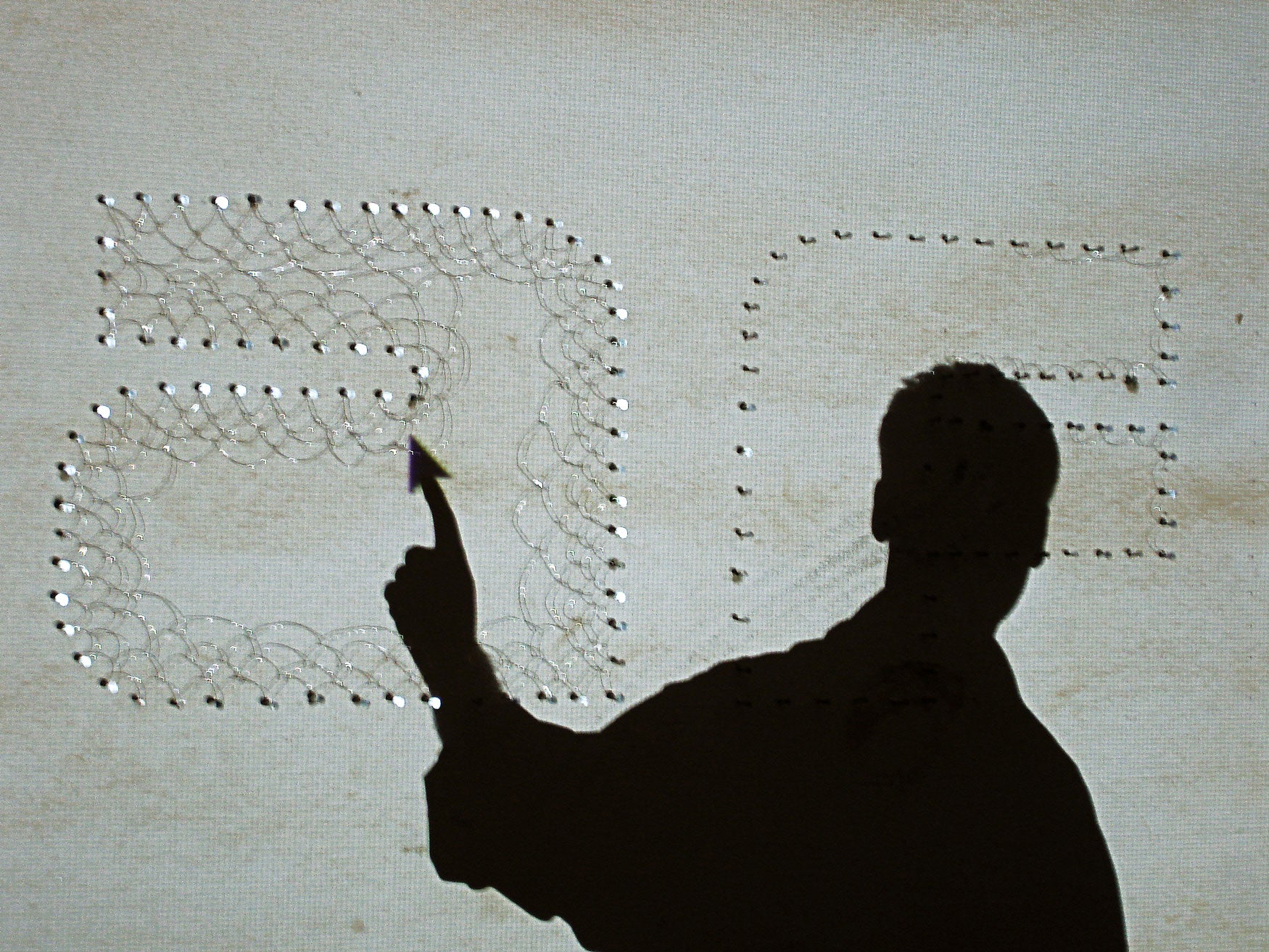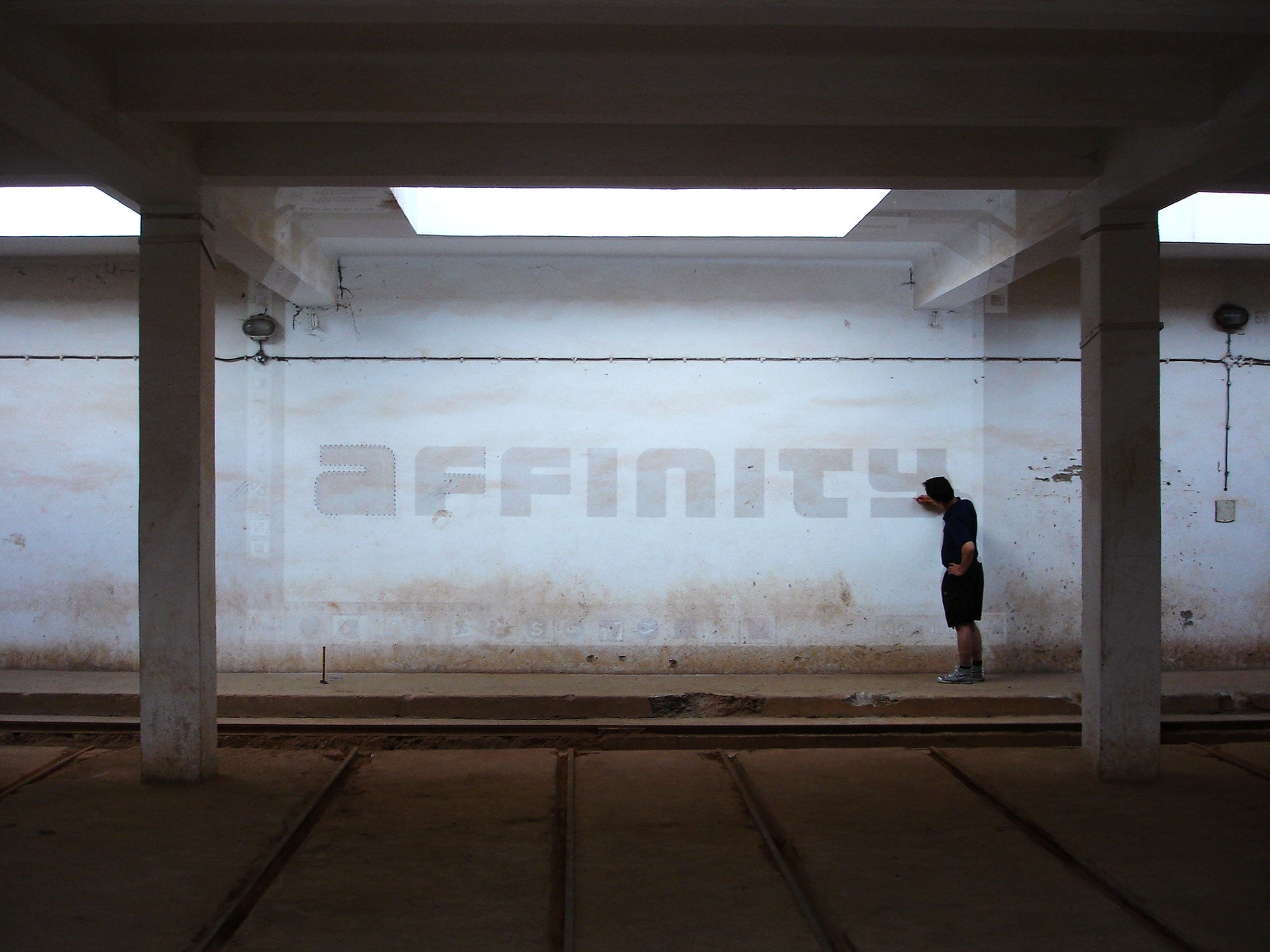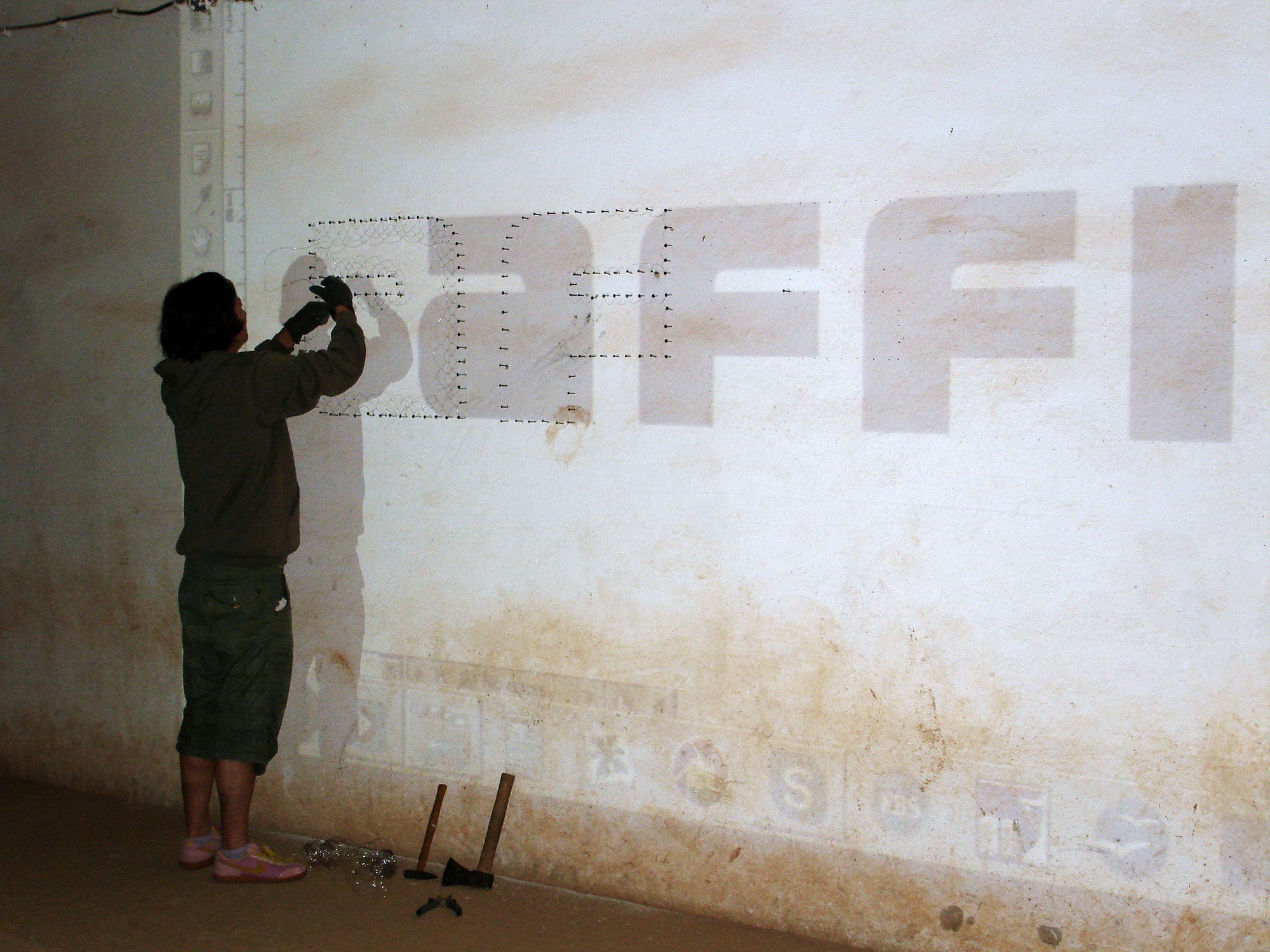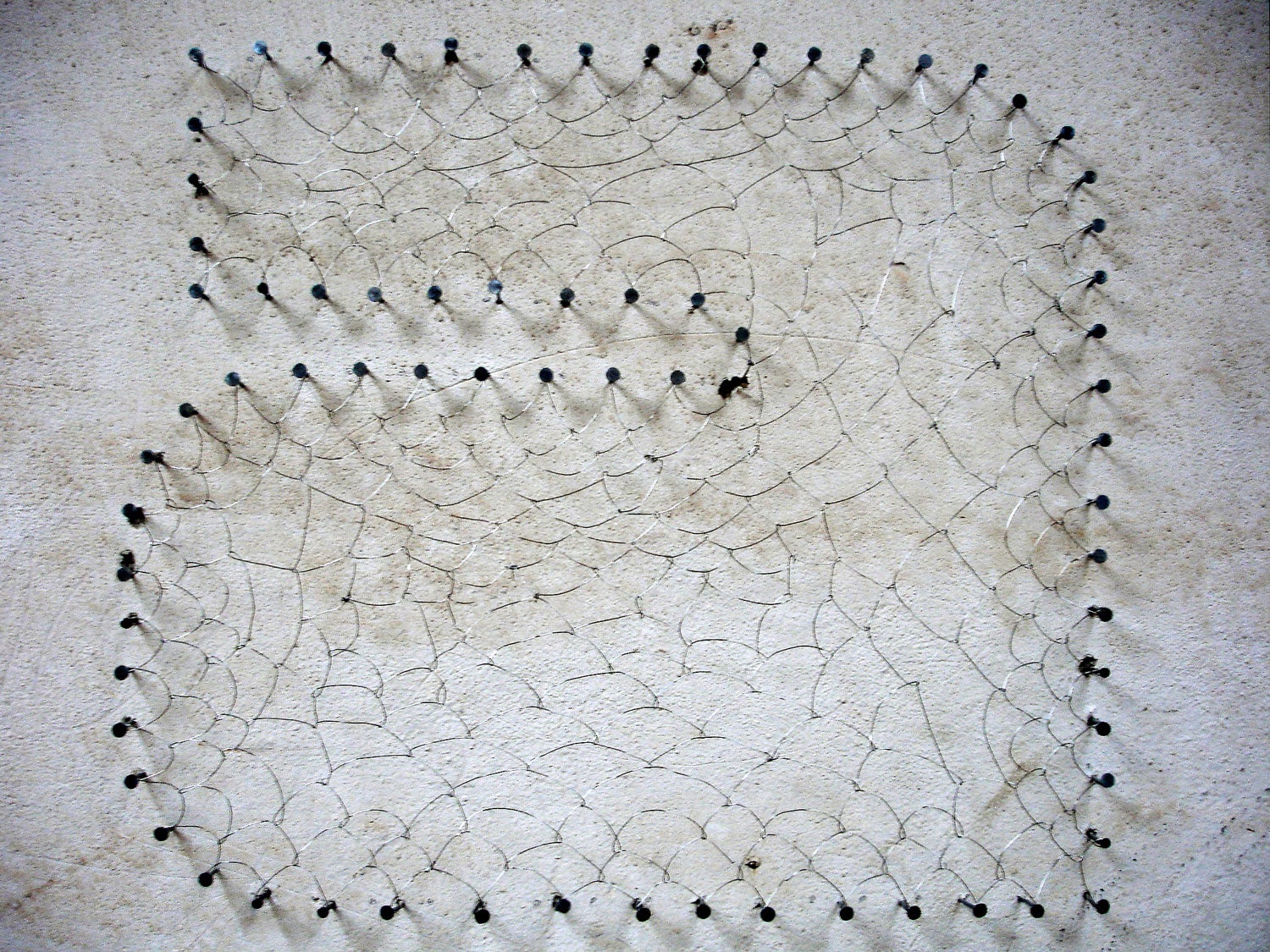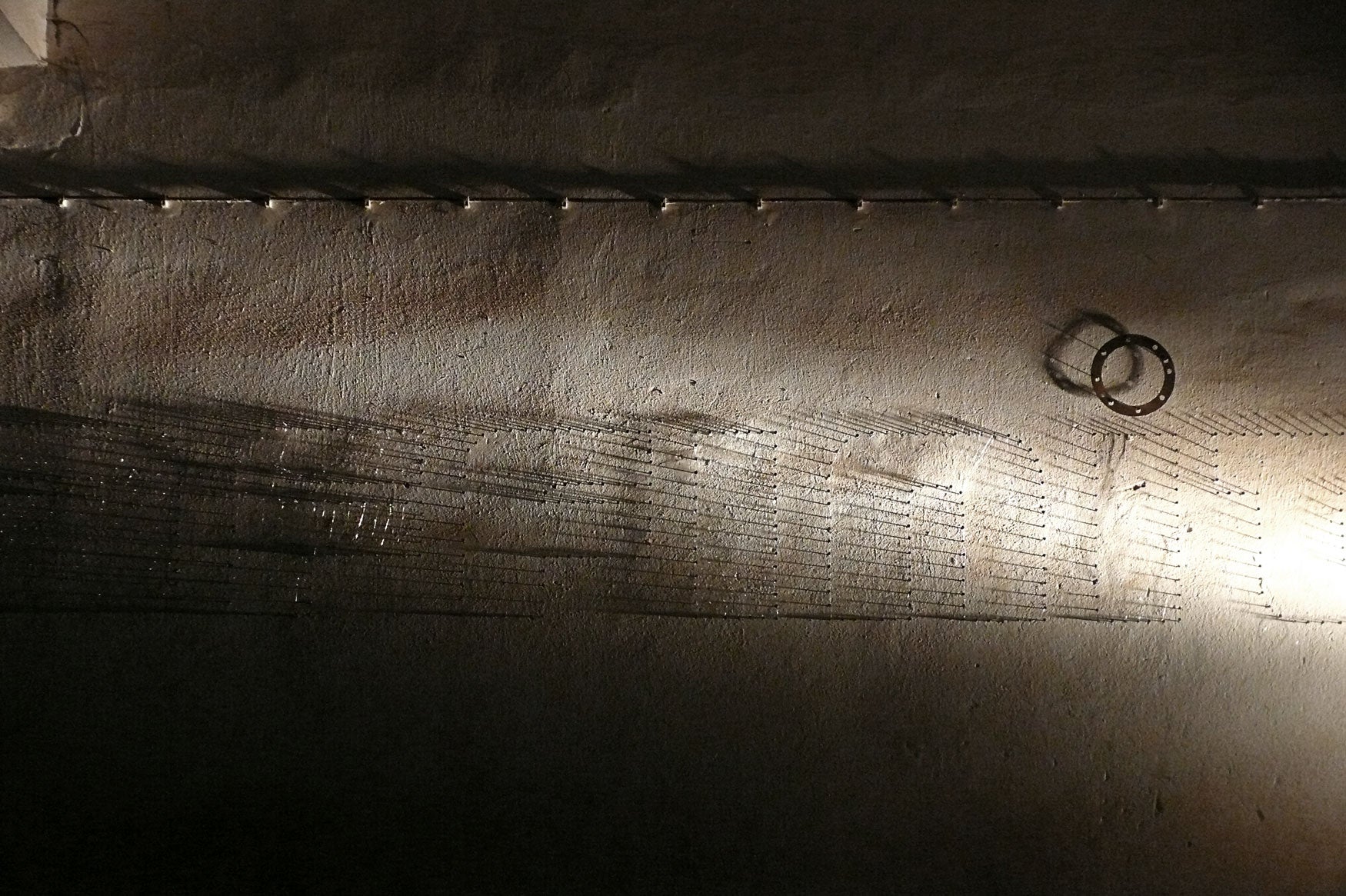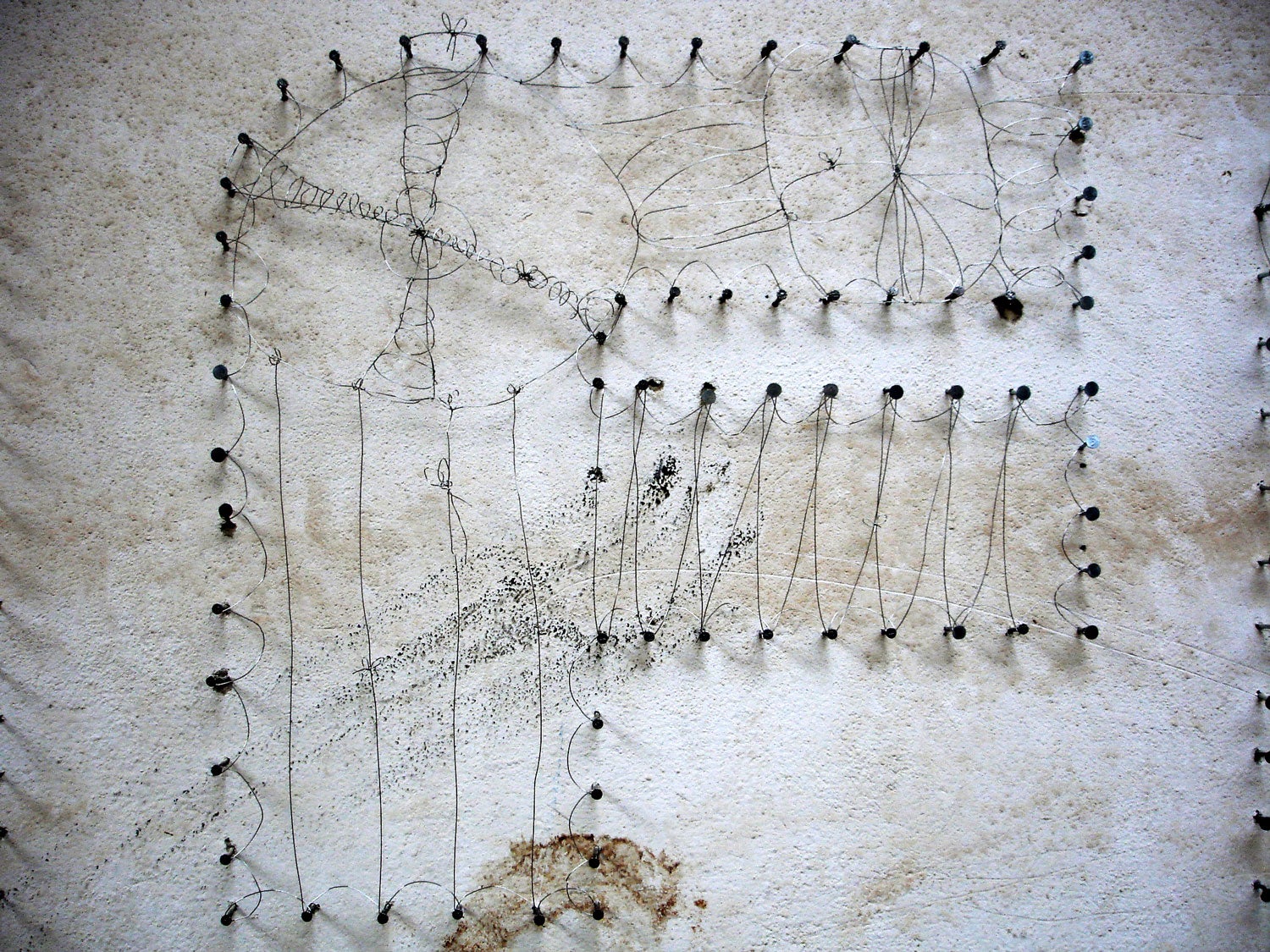
Affinity
A couple execution with an artist and my life partner, Eva Tkáčiková. Combining two kindred spirits and their different artistic approaches into one common work of art. The pragmatic authorial typeface (LECO 1988) turned into a stringed installation of metal wires makes reference to dream catchers and spiritual world in which all desires come true.
Eva Tkáčiková & Samuel Čarnoký POKE festival • 14. — 15. 6. 2011 Drienovská Nová Ves (Slovakia) typeface: LEČO 1988 • stringing, nails, wire © Samuel Čarnoký & Eva Tkáčiková (2011)